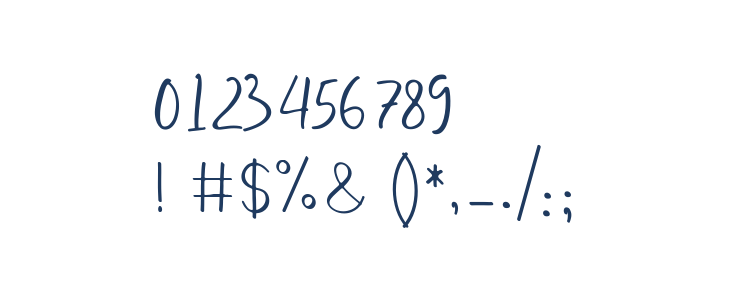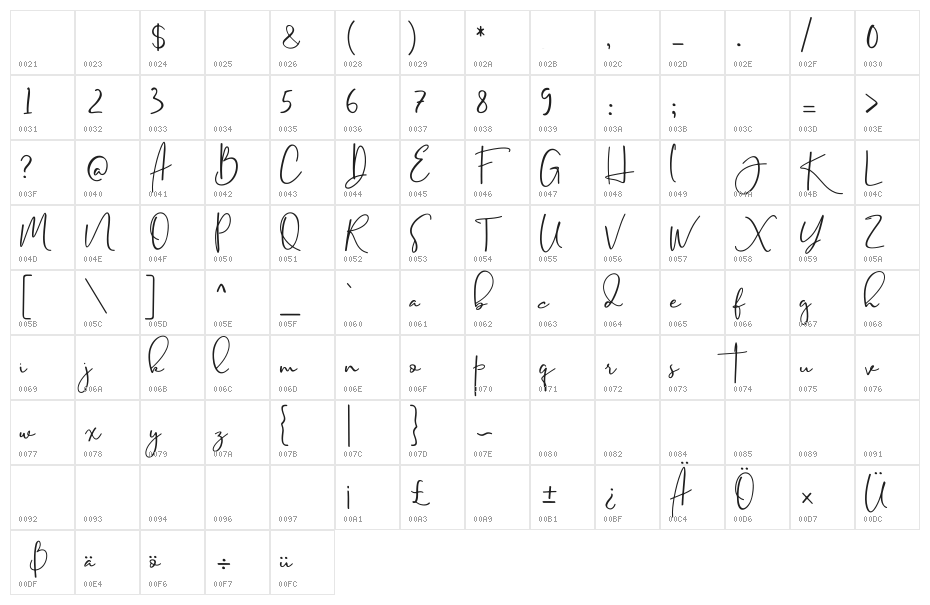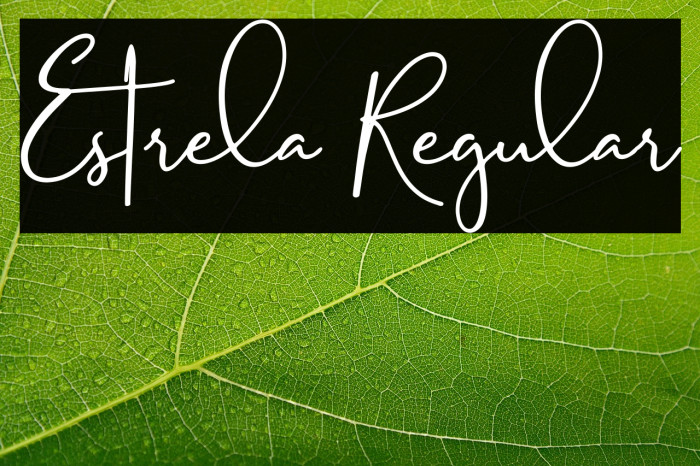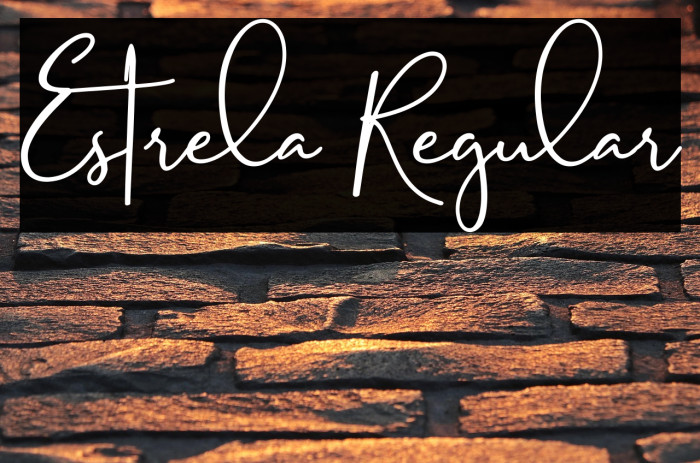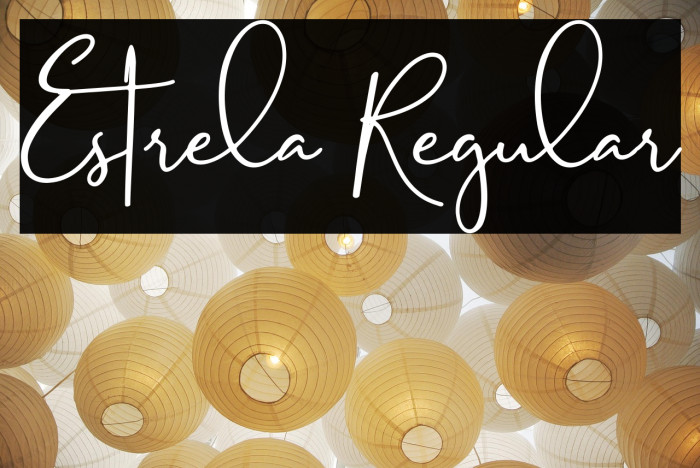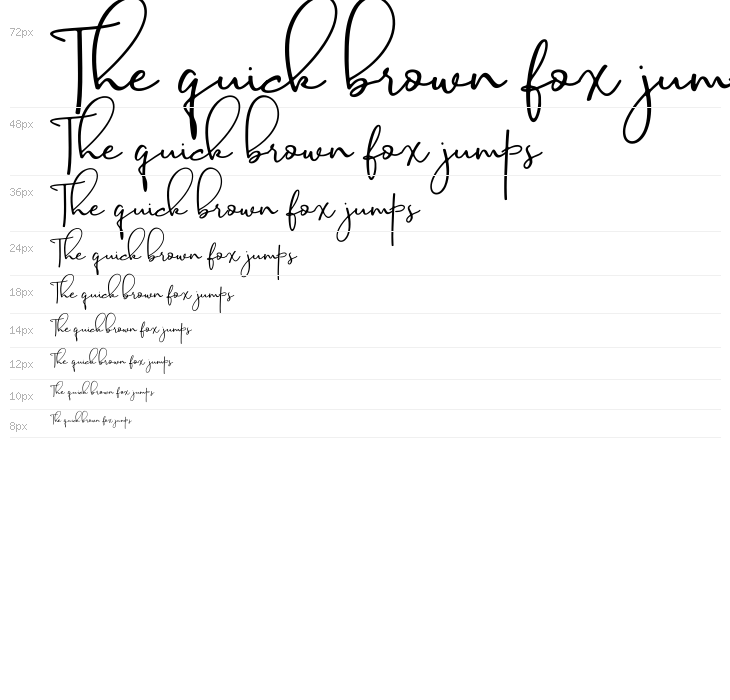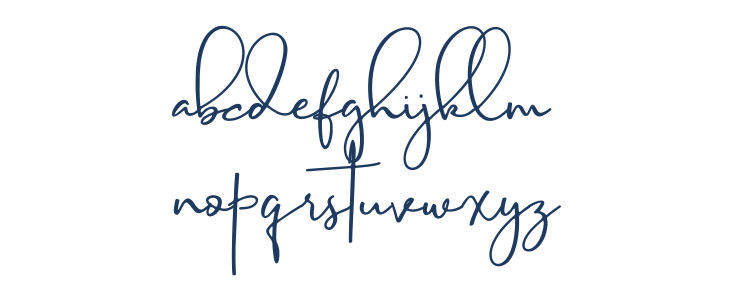
Estrela Regular Font
Estrela Regular Description
This font features a lively and dynamic handwritten style, characterized by its fluid and organic strokes. The uppercase letters are tall and slightly narrow, with a playful yet elegant flair. The lowercase letters maintain a consistent flow, enhancing the handwritten aesthetic. Numbers are clear and legible, with a slight slant that complements the overall style. Special characters are creatively integrated, maintaining the font's cohesive appearance. The font's unique personality makes it suitable for projects that require a personal and artistic touch.
| Proposed Projects | Ideal for personal branding, invitations, greeting cards, and artistic projects. |